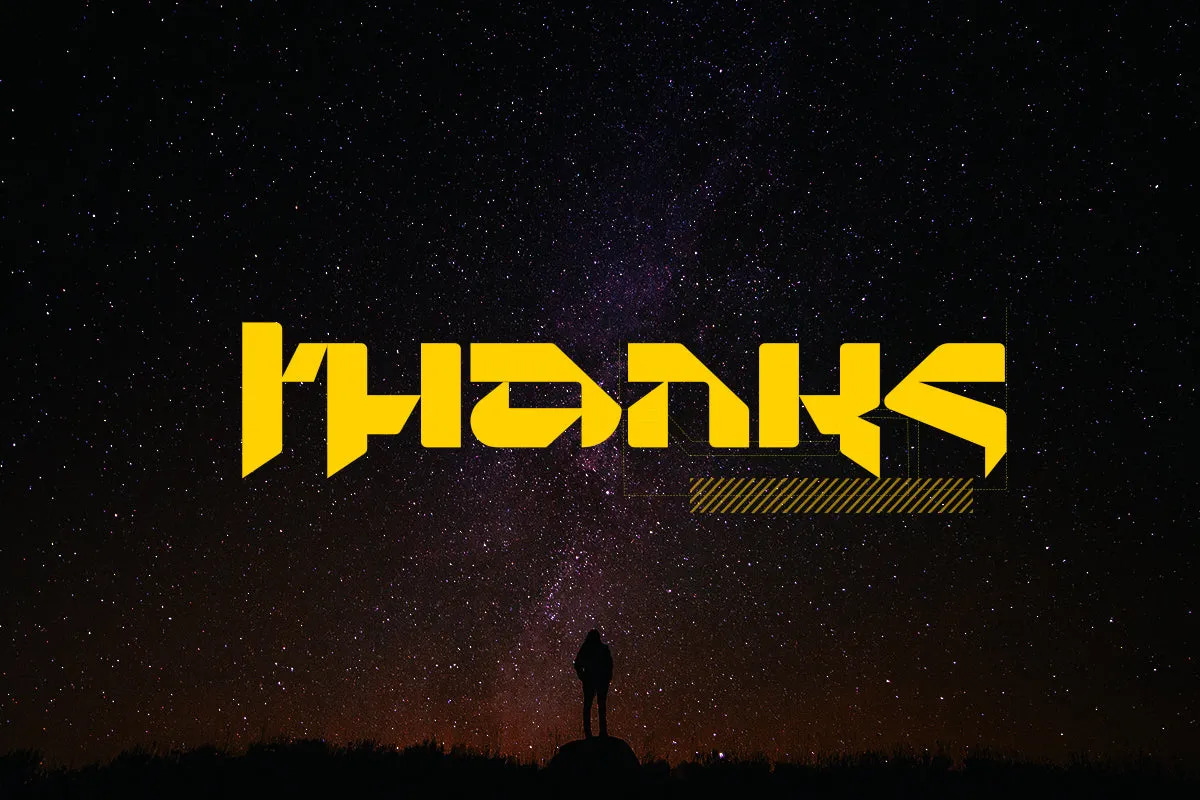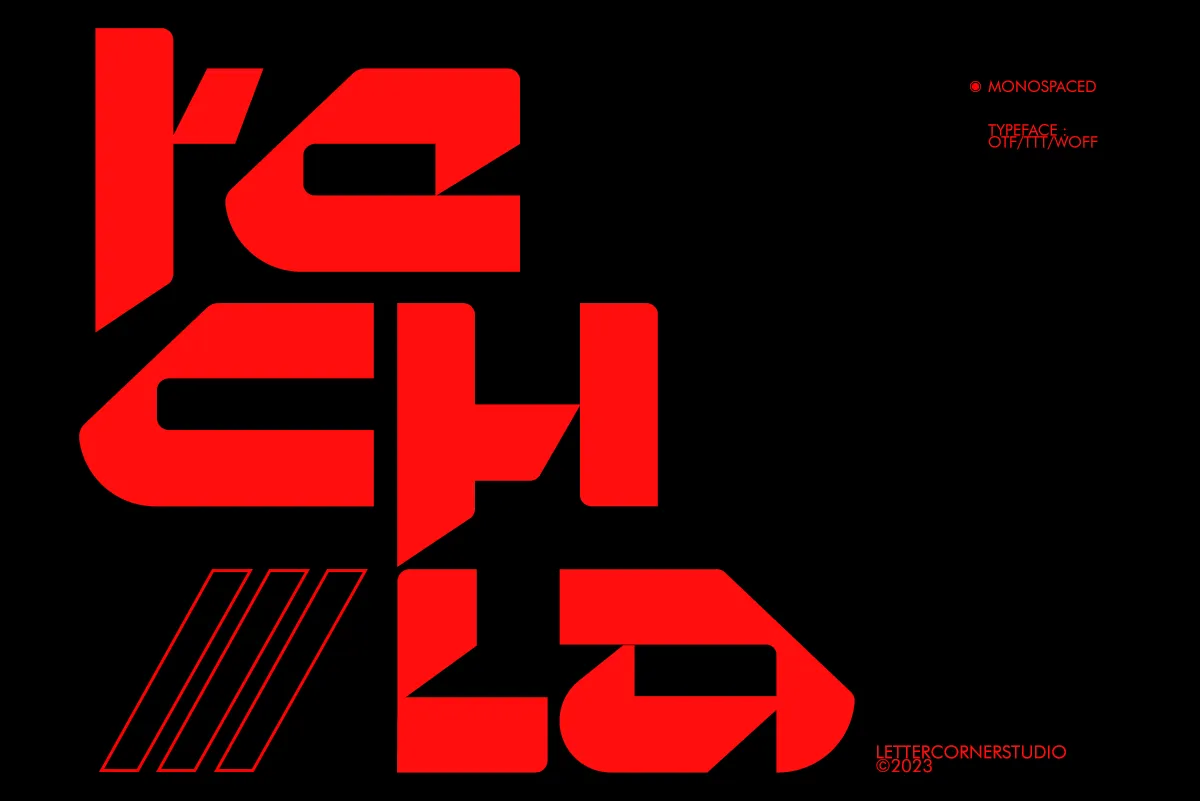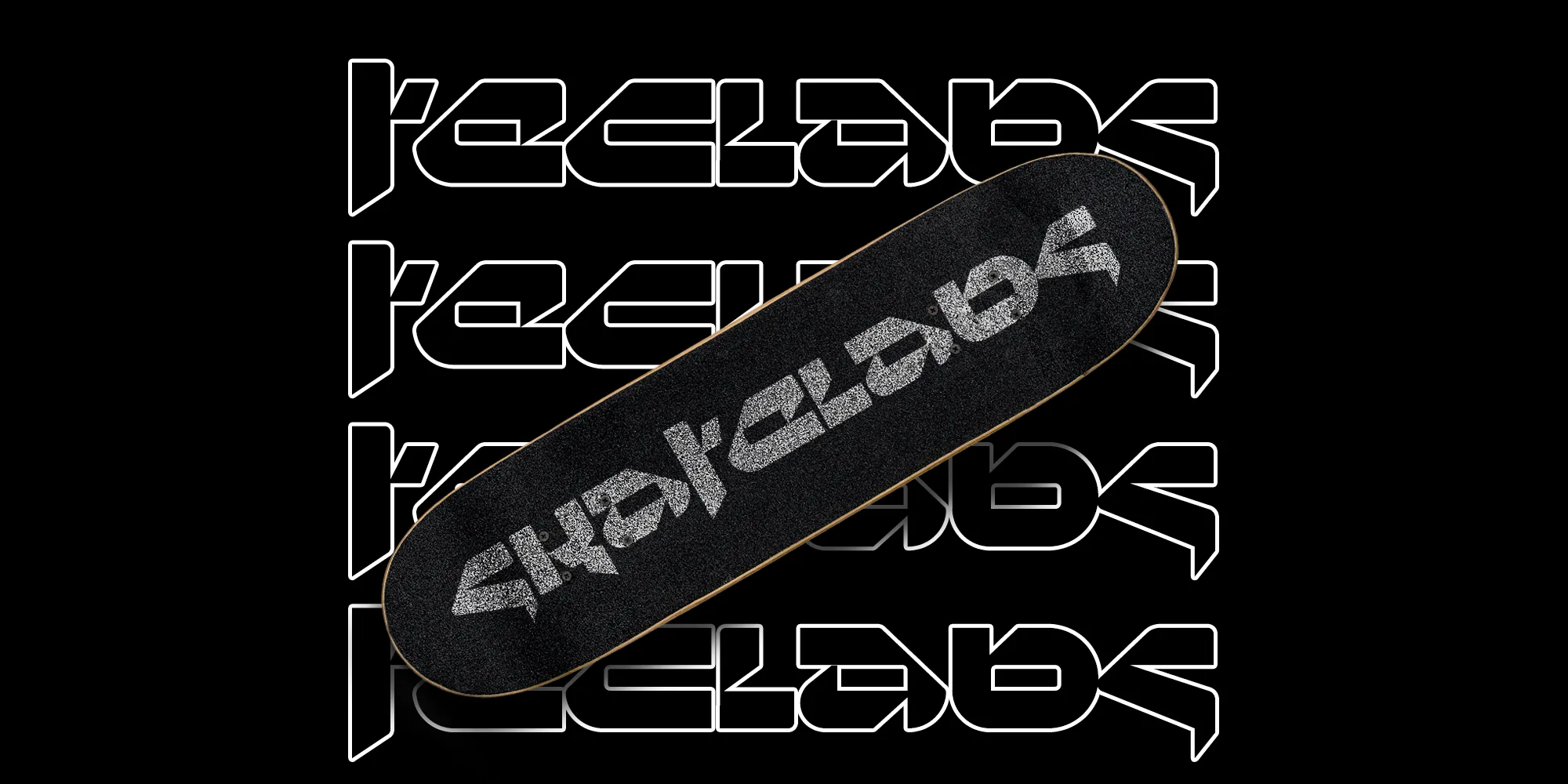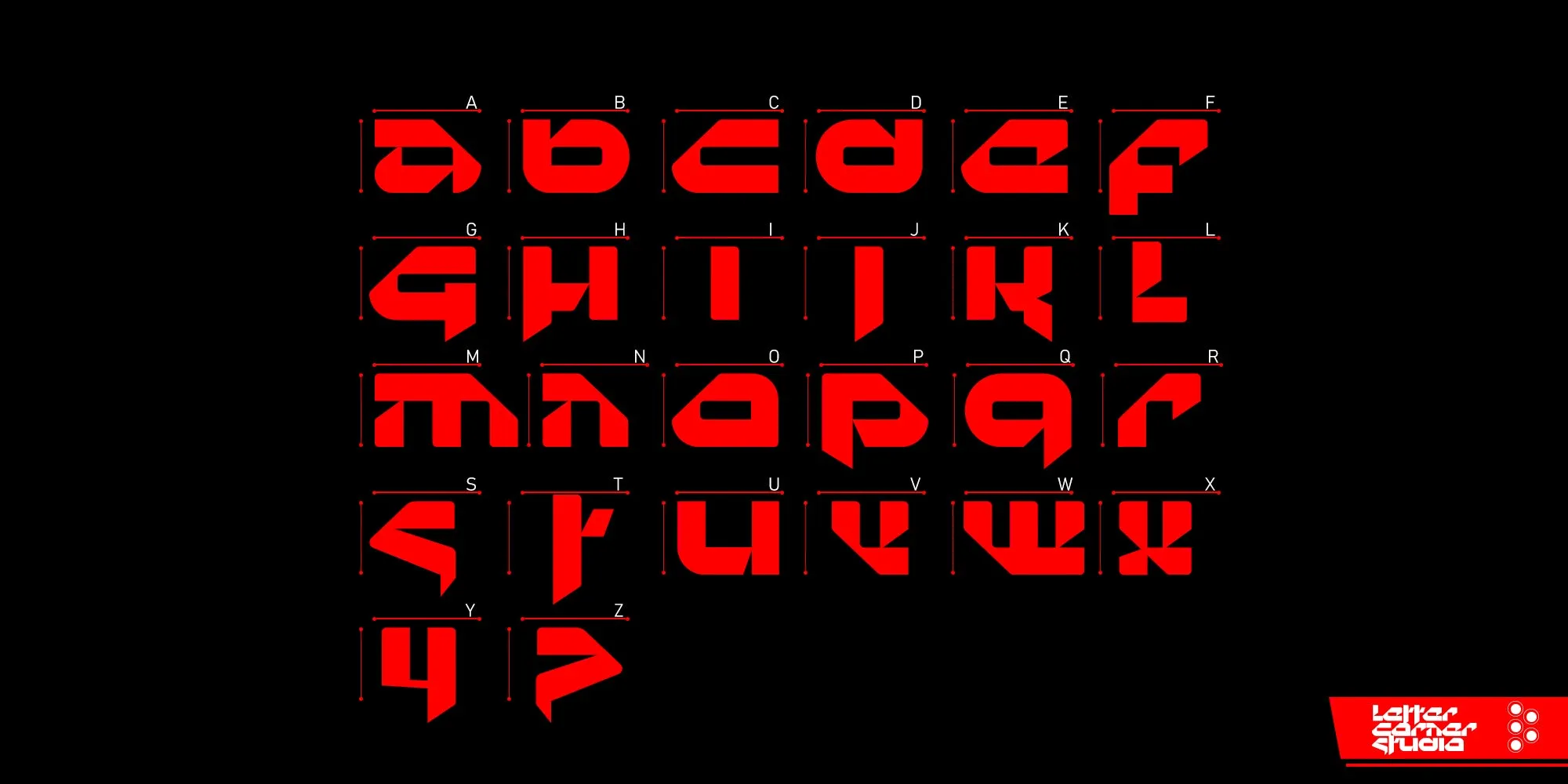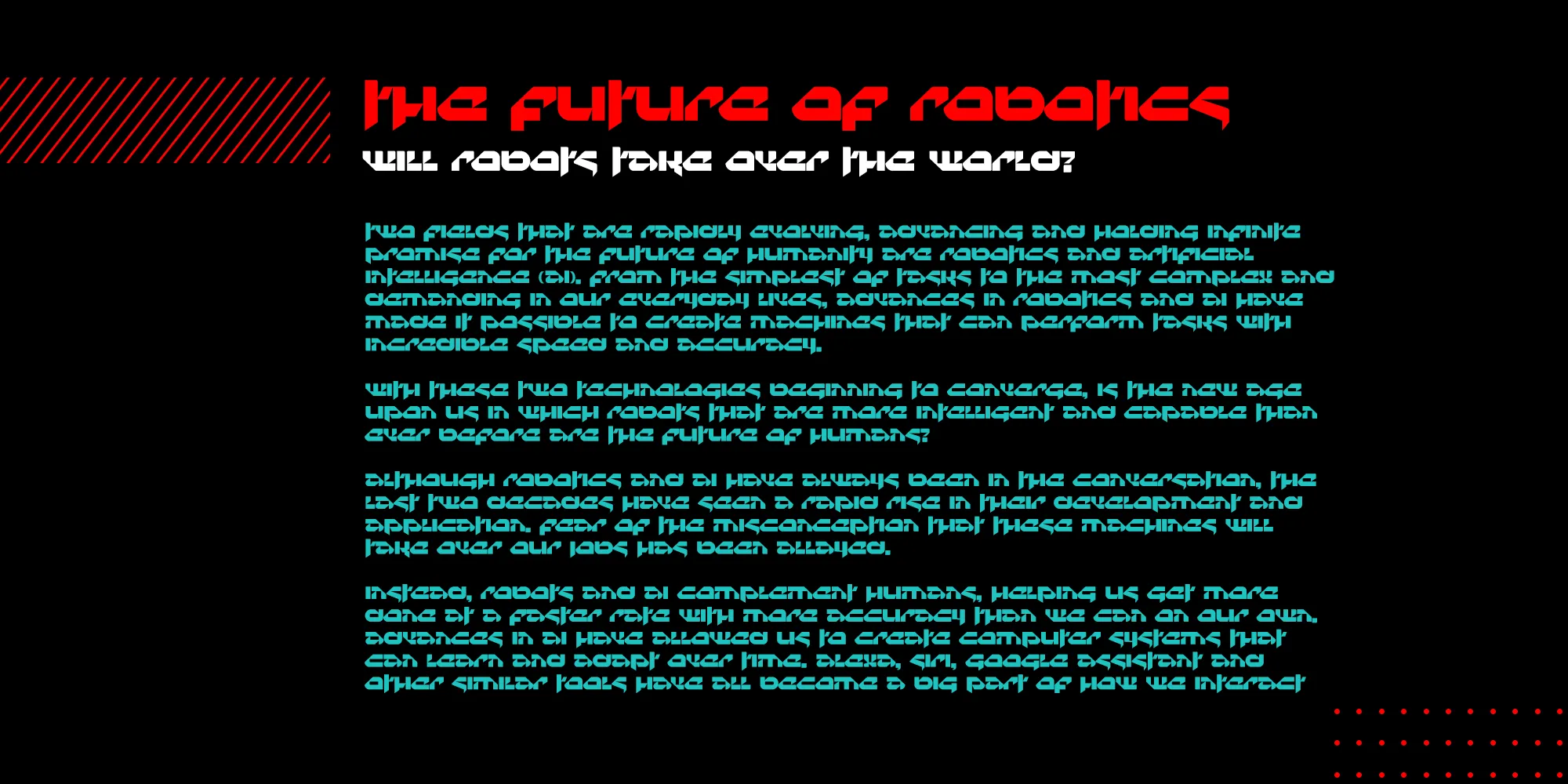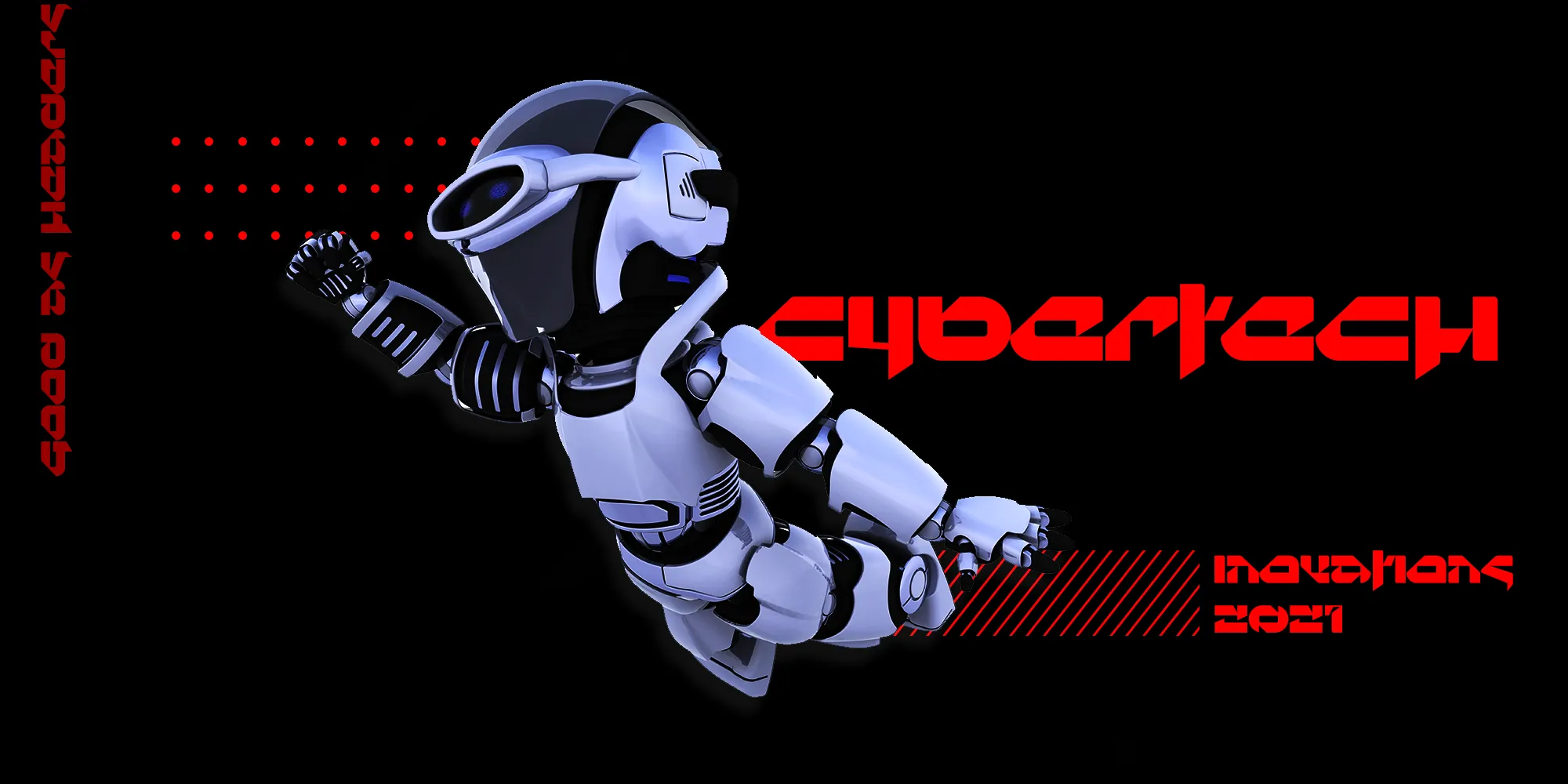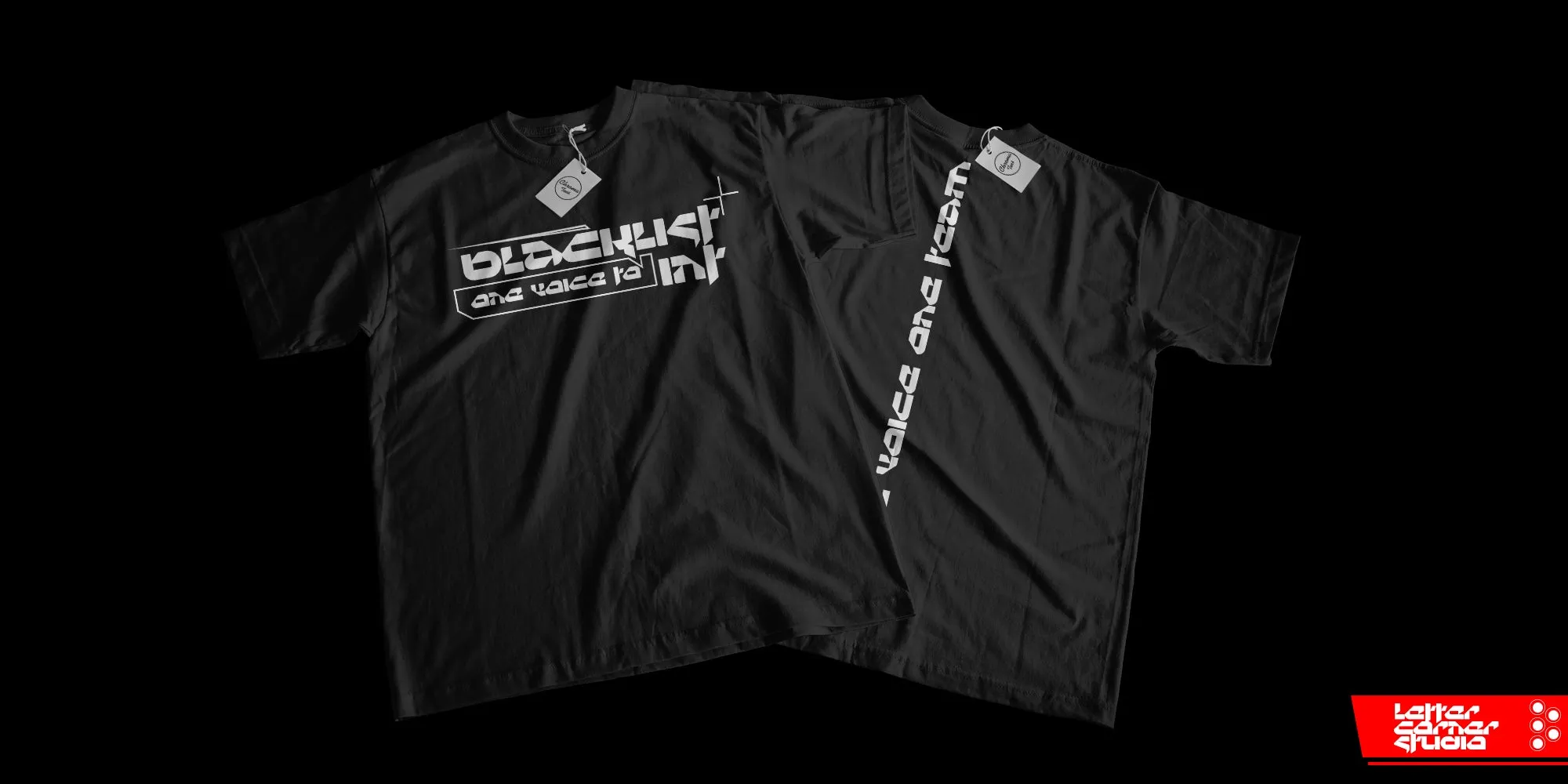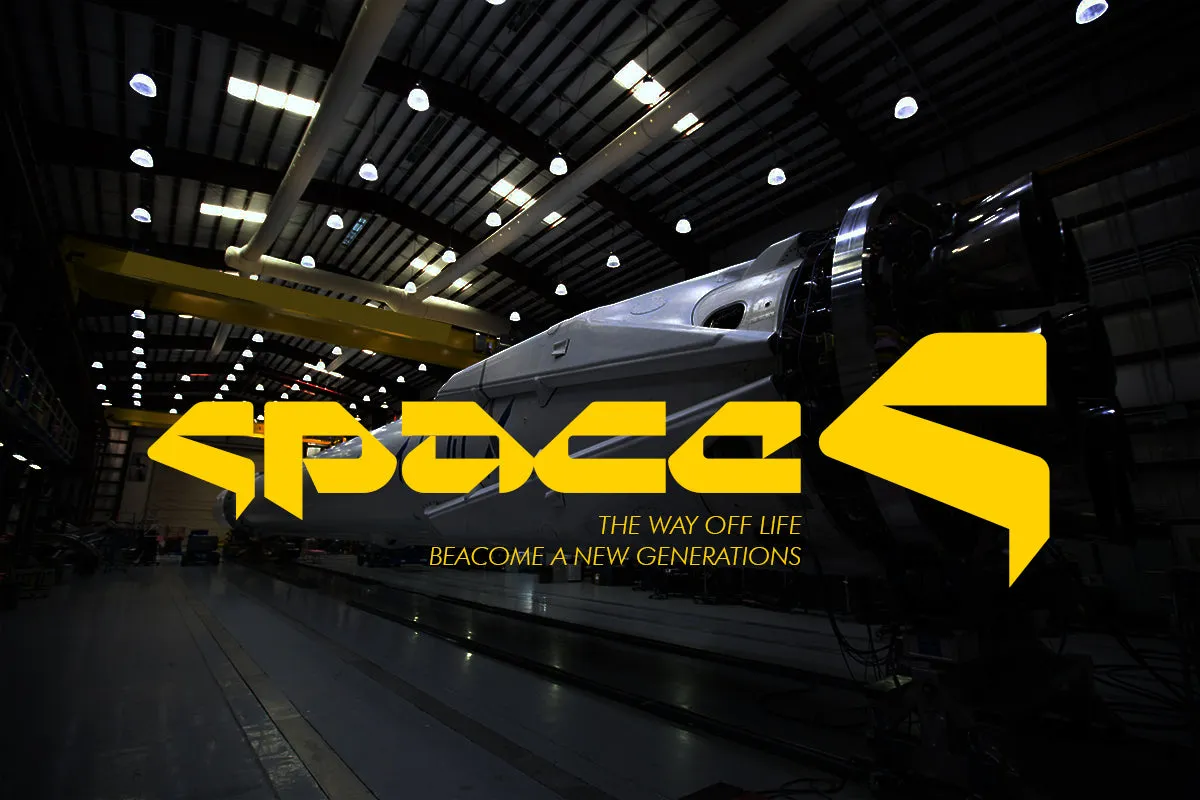
Techla - Futuristic Display Font
Introducing Techla, a futuristic and unique display font from . It’s quirky letterforms make this font perfect for branding, headlines, logotype, stickers, editorial design, and more.